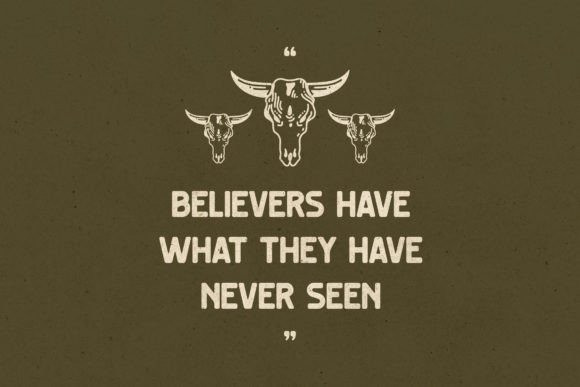
Jabregor Font Family
Jabregor is a classic display font with a unique style and modern look. This typeface is perfect for elegant and luxury logos, book or movie title designs, fashion brands, magazines, clothes, lettering, quotes, and so much more.